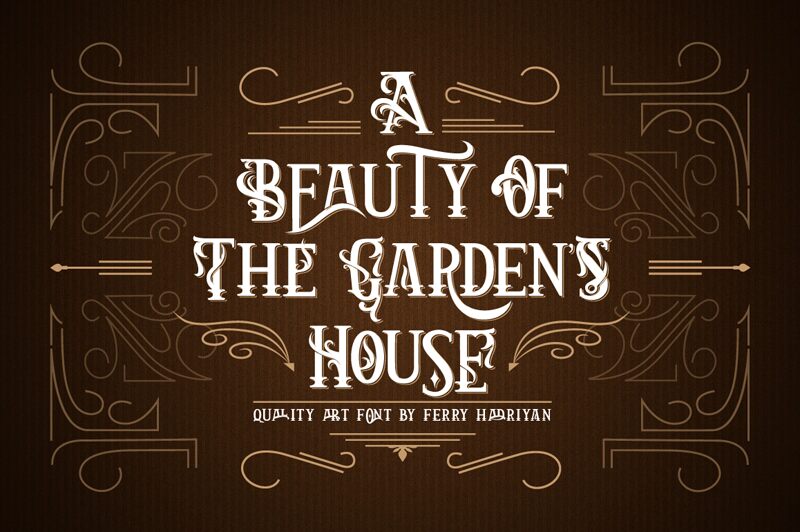
Arthouse font by FHFont is a condensed retro serif display font that combines classic elegance with rich details for an ornamental composition. Including artistic floral embellishments within its sophisticated outlines, this highly decorative free font’s aesthetic is unique and dramatic at once, giving way to the most classy of designs.
The typeface is best suited for decorative and impactful display purposes in headings and titles. Use it to artfully label packaging, especially glass bottles such as perfumes. Other interesting applications to try are nostalgic movie posters, retail signage, menu cards, fashion editorials, and branding.